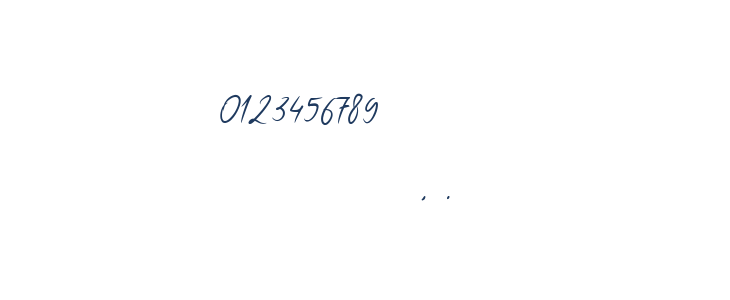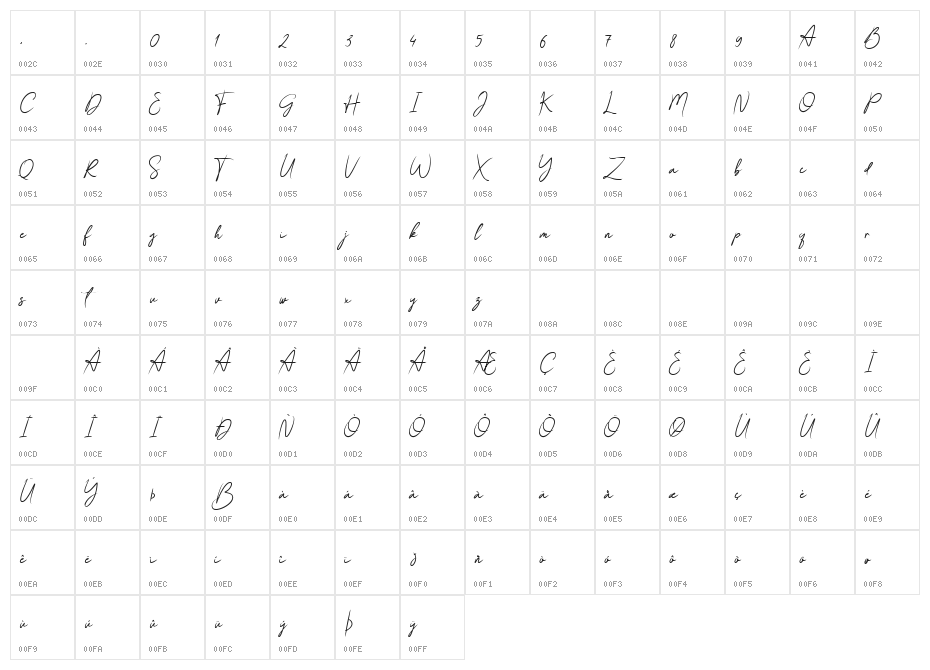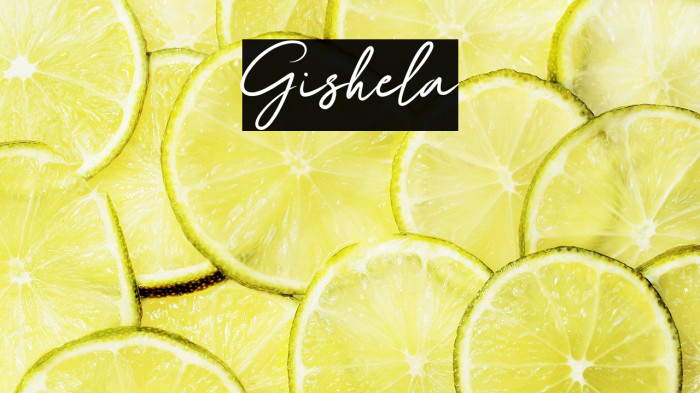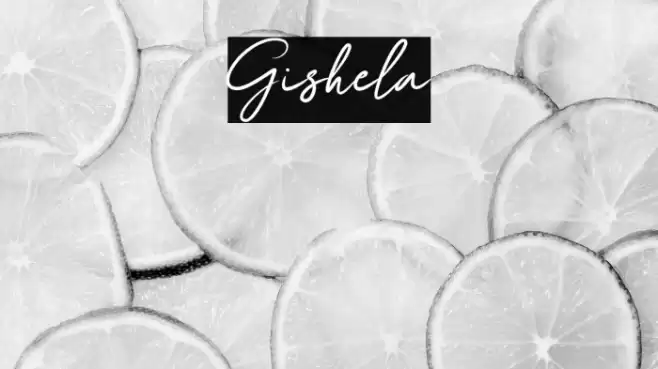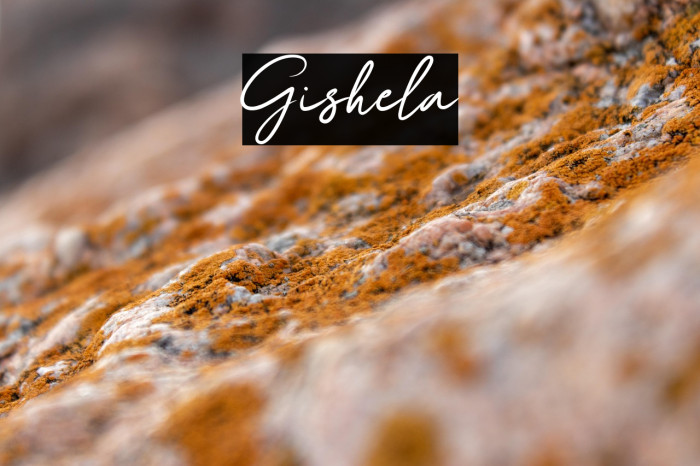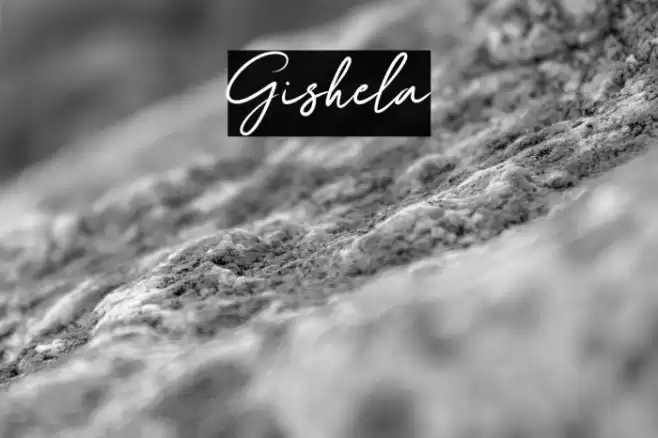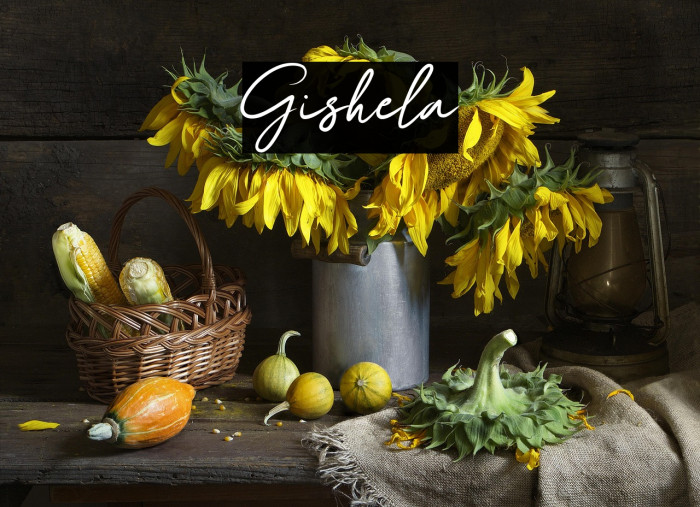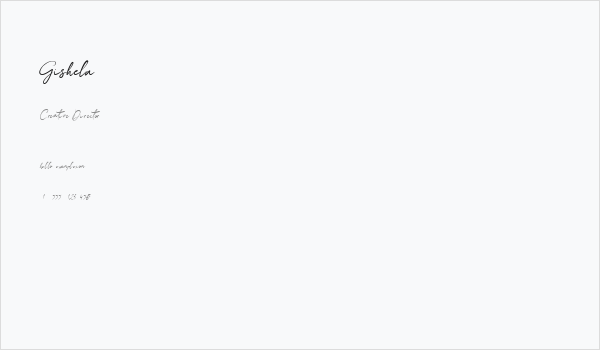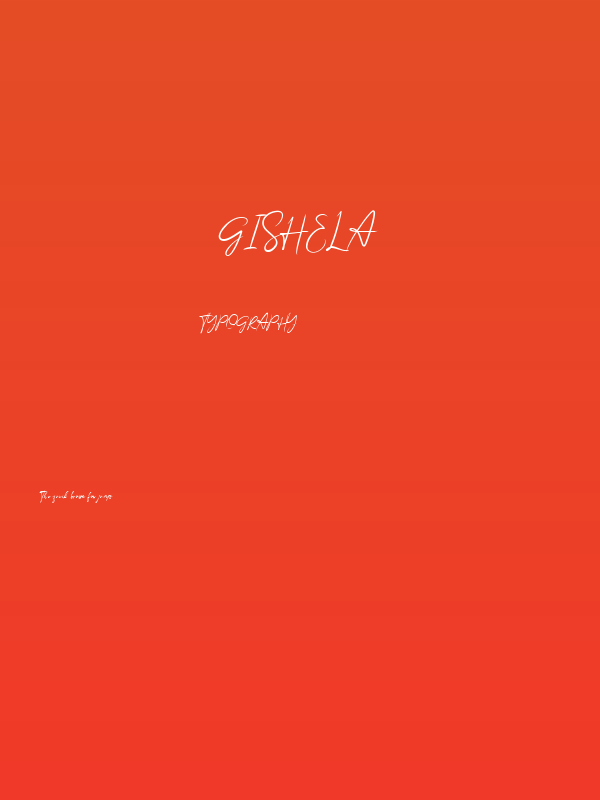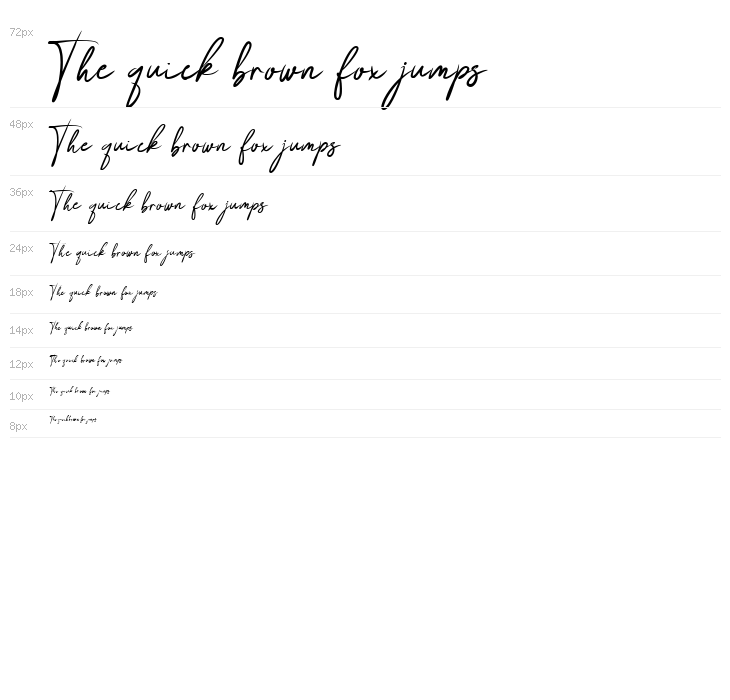
Gishela Font
Gishela Description
This elegant script font features a flowing, handwritten style that exudes sophistication and charm. The characters are gracefully connected, with a natural, fluid motion that mimics the strokes of a calligrapher's pen. The uppercase letters are tall and slightly slanted, while the lowercase letters maintain a consistent, smooth baseline. The numerals are clear and legible, complementing the overall aesthetic. This font's delicate curves and stylish flair make it ideal for projects that require a personal touch or a sense of elegance.
| Overall Style | Elegant, Handwritten |
| Use Case | Logos, Invitations, Branding |
| Proposed Projects | Ideal for wedding invitations, greeting cards, branding, and elegant logo designs. |